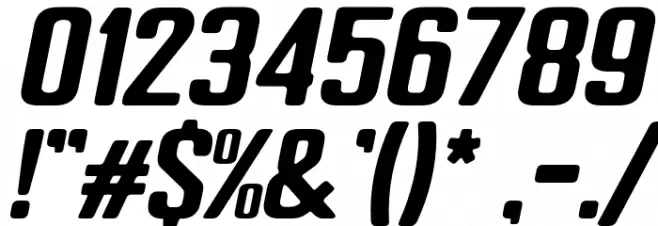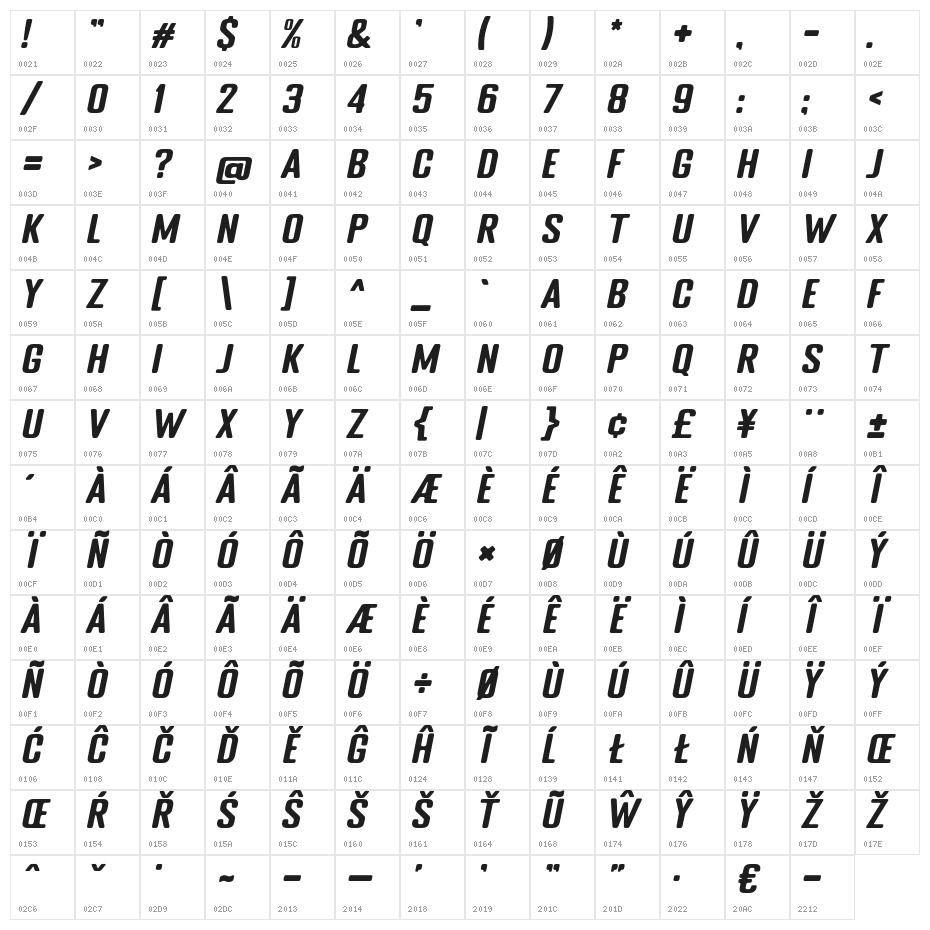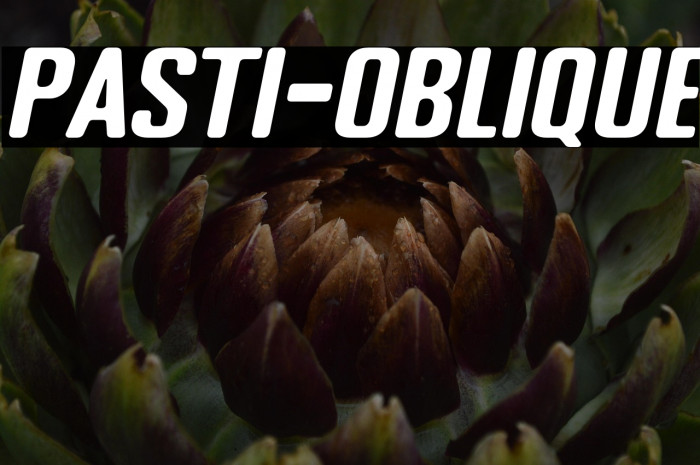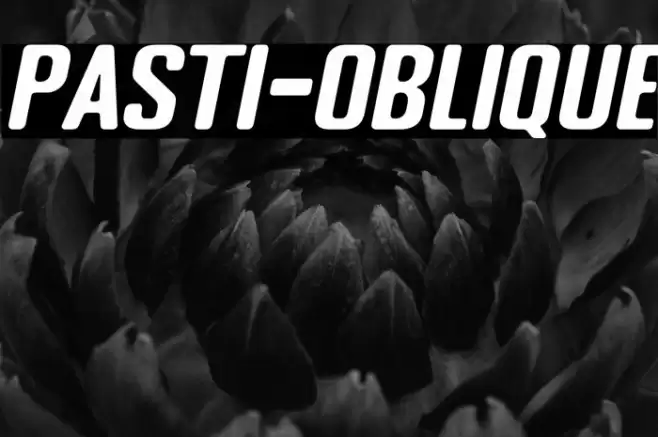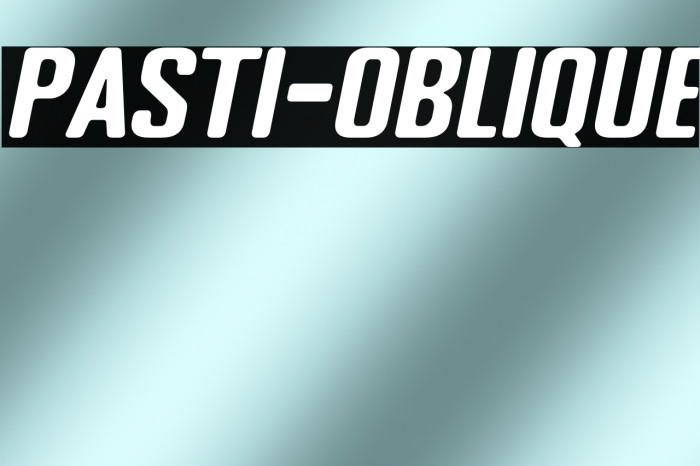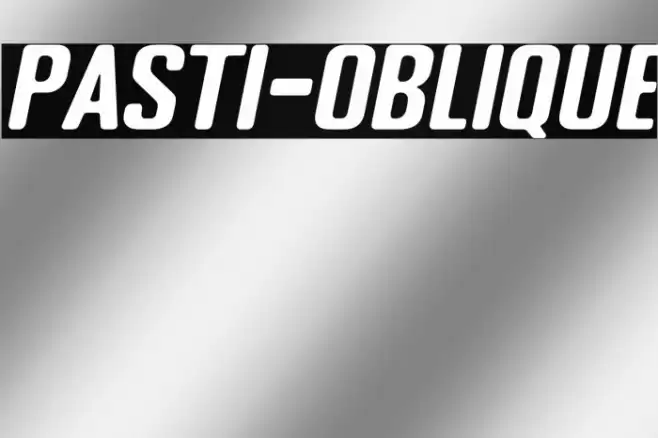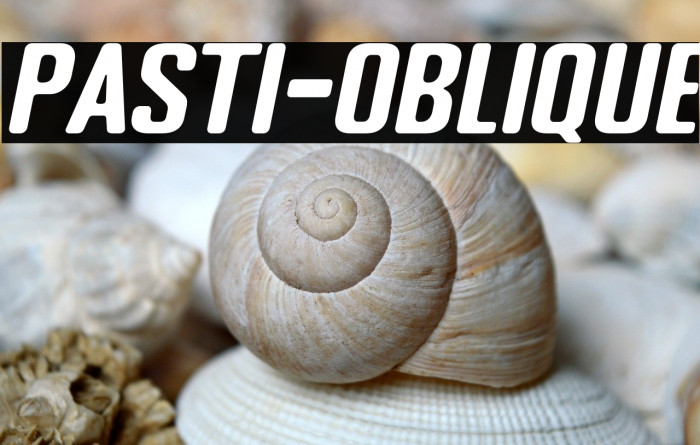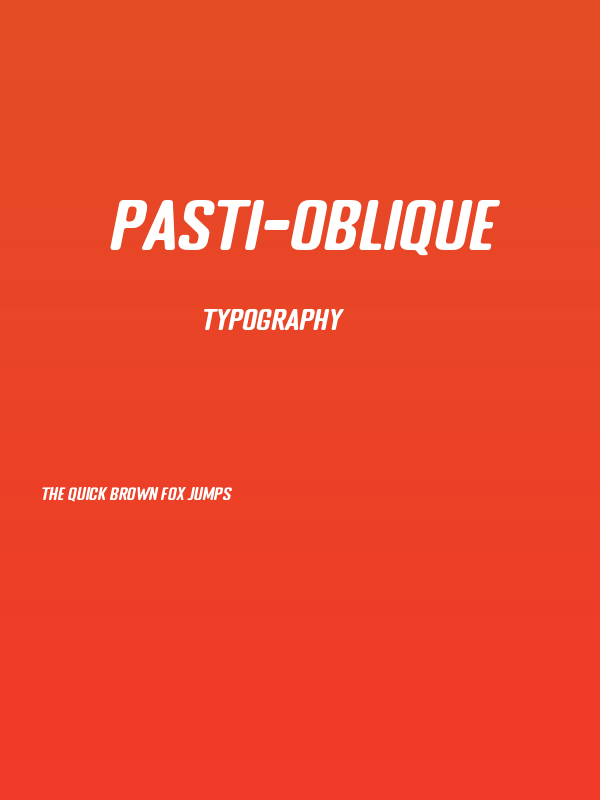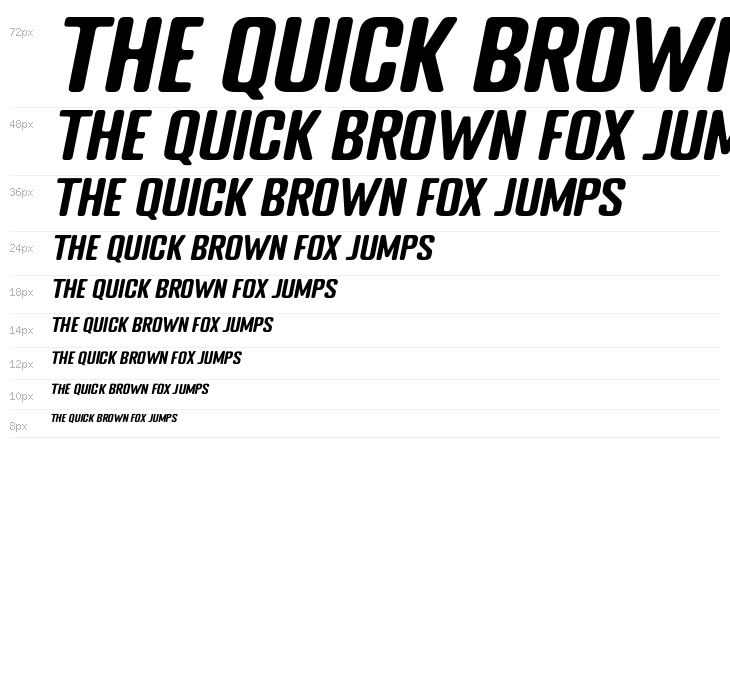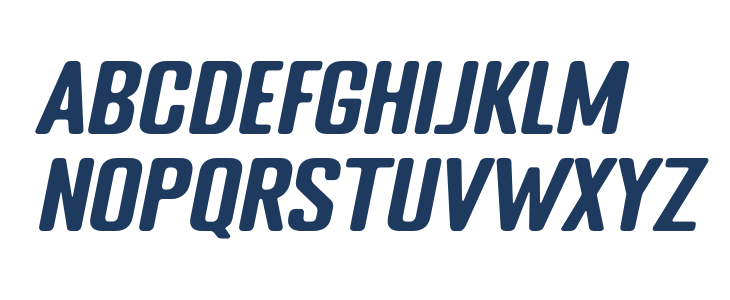
PASTI-Oblique Font
PASTI-Oblique Description
This font features a bold, dynamic style with a distinct oblique slant, giving it a sense of motion and energy. The characters are robust and slightly condensed, with smooth curves and consistent stroke widths that enhance readability. The uppercase letters are particularly striking, with a uniform height that maintains a cohesive look. The numerals and special characters follow the same design principles, ensuring a harmonious appearance across all text elements. This font's modern aesthetic is perfect for projects that require a strong visual impact.
| Proposed Projects | Ideal for sports branding, dynamic posters, and modern advertising campaigns. |